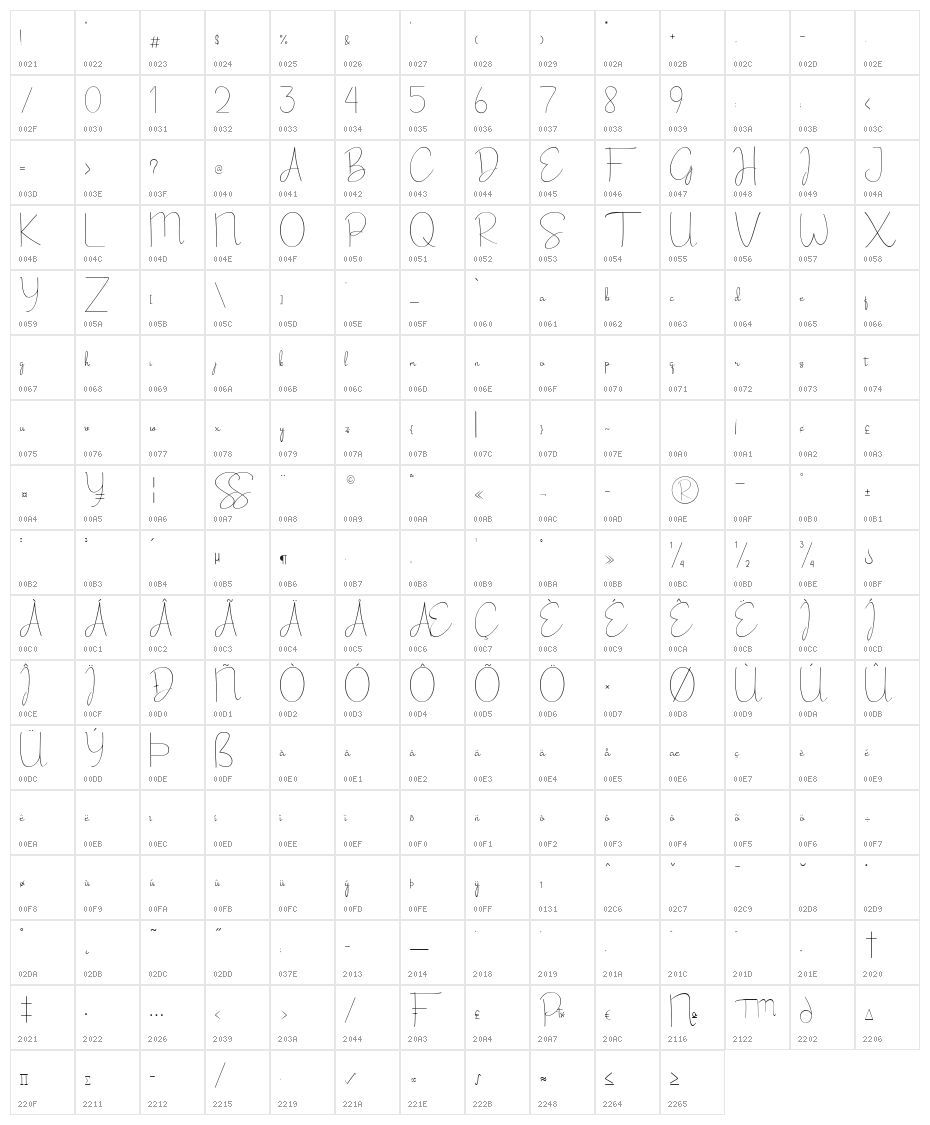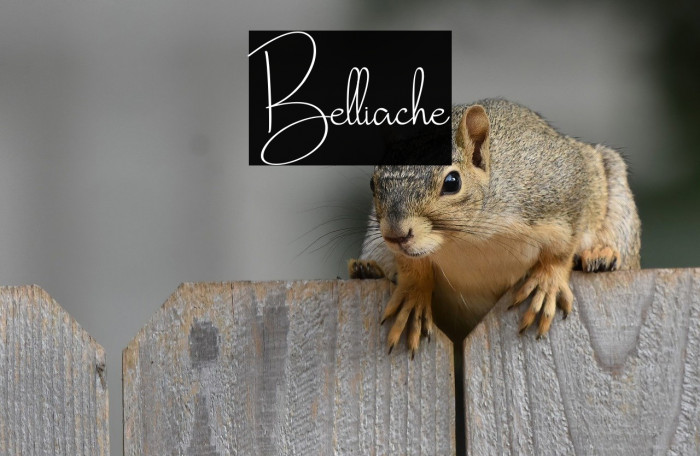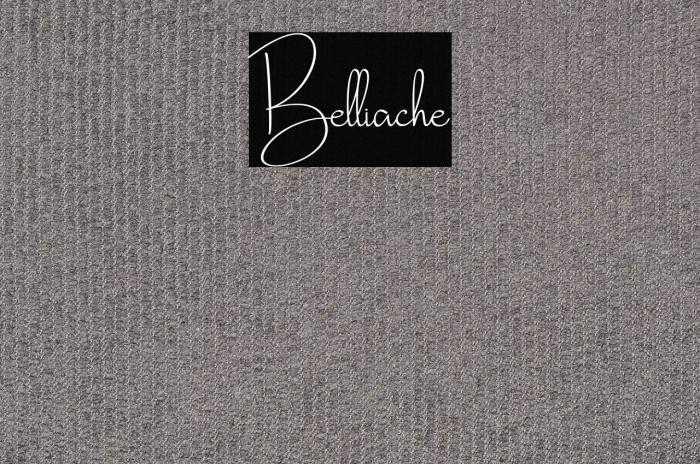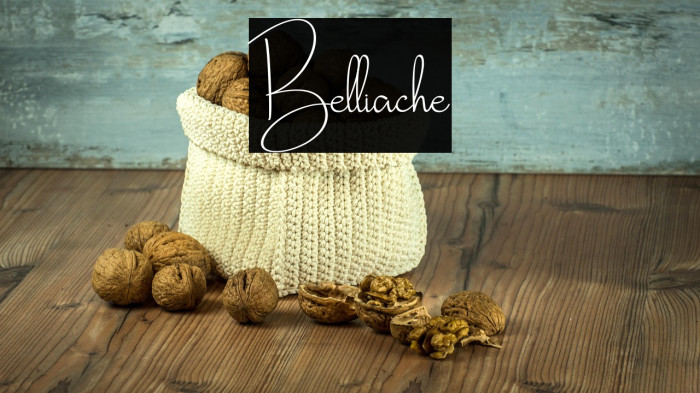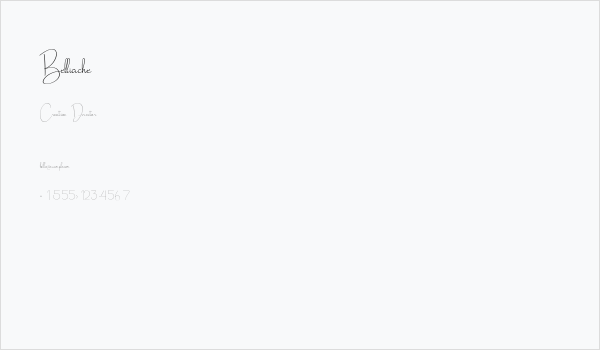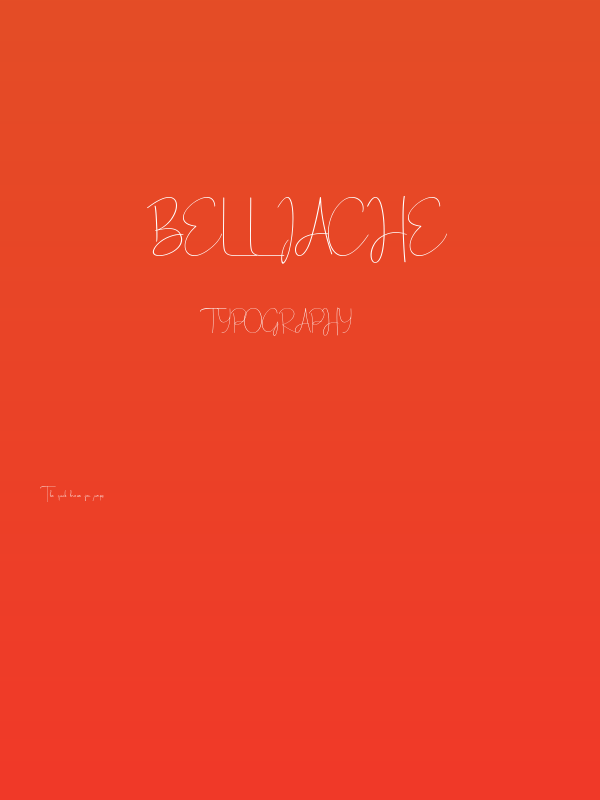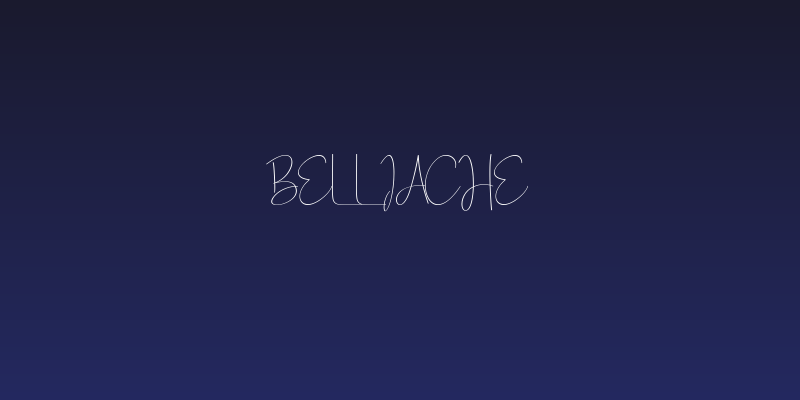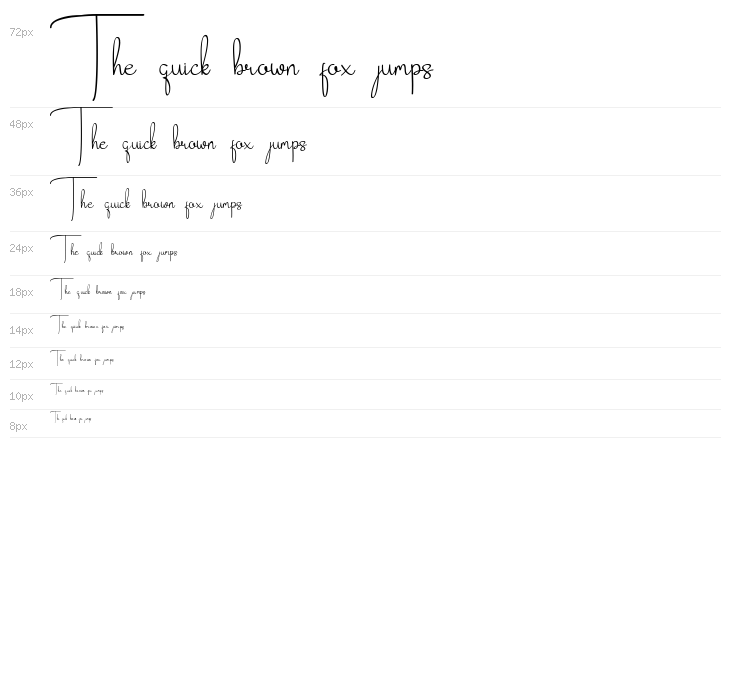
Belliache Font
Belliache Description
This font features a delicate and flowing script style, characterized by its thin, elegant lines and graceful curves. The uppercase letters are tall and slender, with a whimsical touch that adds a sense of playfulness. The lowercase letters maintain a consistent flow, enhancing readability while preserving the font's artistic flair. Numbers are similarly styled, with a clean and minimalistic appearance. Special characters are thoughtfully integrated, maintaining the overall aesthetic. This font exudes a sense of sophistication and charm, making it suitable for a variety of creative applications.